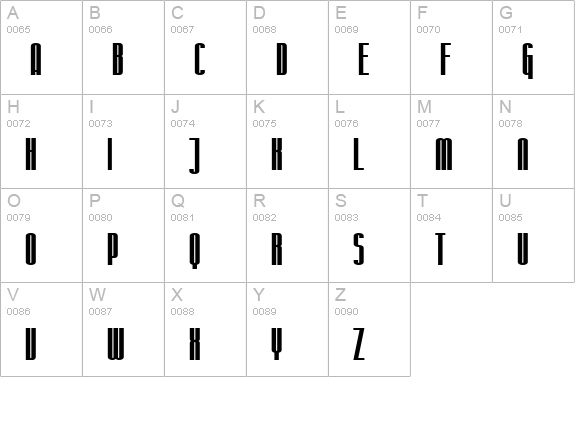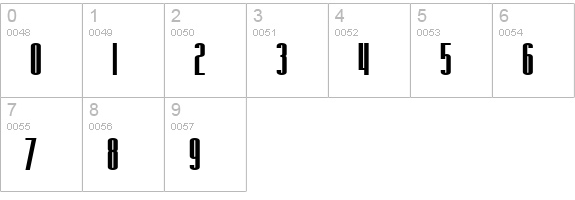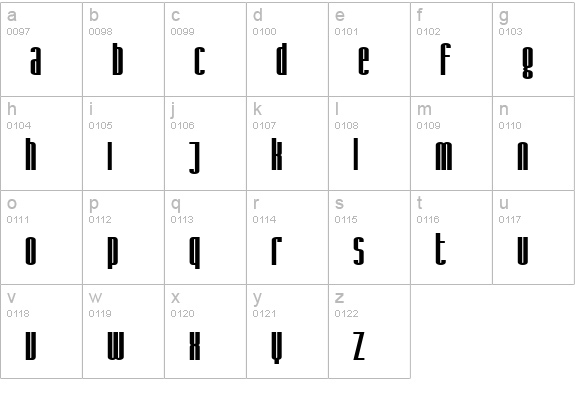
SF Iron Gothic Bold Font Details
SF Iron Gothic Bold is a strong, high-contrast variant in the SF typeface family \xE2\x80\x94 well suited to headlines, attention-grabbing titles, and strong calls-to-action.
SF Iron Gothic Bold is a visually striking and powerful font that exudes a sense of strength and modernity. With its bold and intricate letterforms, this typeface effortlessly combines the classic elegance of traditional gothic styles with a futuristic twist. The sharp edges and geometric shapes create a sense of industrial robustness, making SF Iron Gothic Bold perfect for projects that require a strong and impactful message. What sets SF Iron Gothic Bold apart is not just its exceptional design, but also its accessibility. This font is freely available to download at FontsMarket.com, allowing designers, creatives, and enthusiasts alike to unleash their creativity without any limitations. Whether you're designing a logo, crafting a poster, or creating a visually captivating website, SF Iron Gothic Bold will elevate your work to new heights. The versatility of SF Iron Gothic Bold is another standout feature. Its bold letterforms make it ideal for headlines and titles, grabbing attention and leaving a lasting impression. The font's clean and legible design ensures readability even at smaller sizes, making it a great choice for body text and paragraphs. With SF Iron Gothic Bold, you have the flexibility to experiment and explore various design possibilities while maintaining a cohesive and visually appealing aesthetic. Furthermore, SF Iron Gothic Bold offers an extensive character set that includes uppercase and lowercase letters, numbers, punctuation marks, and special symbols. This wide range of characters allows you to effortlessly express your ideas and messages, while adding a touch of individuality and uniqueness to your designs. In conclusion, SF Iron Gothic Bold is a stunning and versatile font that combines the timeless elegance of gothic styles with a contemporary twist. Its strong and impactful design, coupled with its accessibility, makes it a must-have for designers seeking to make a bold statement. Whether you're working on print or digital projects, SF Iron Gothic Bold will undoubtedly elevate your designs to new levels of excellence. Remember, this font is freely available to download at FontsMarket.com, allowing you to unleash your creativity without any restrictions. Embrace the power of SF Iron Gothic Bold and bring your visions to life.